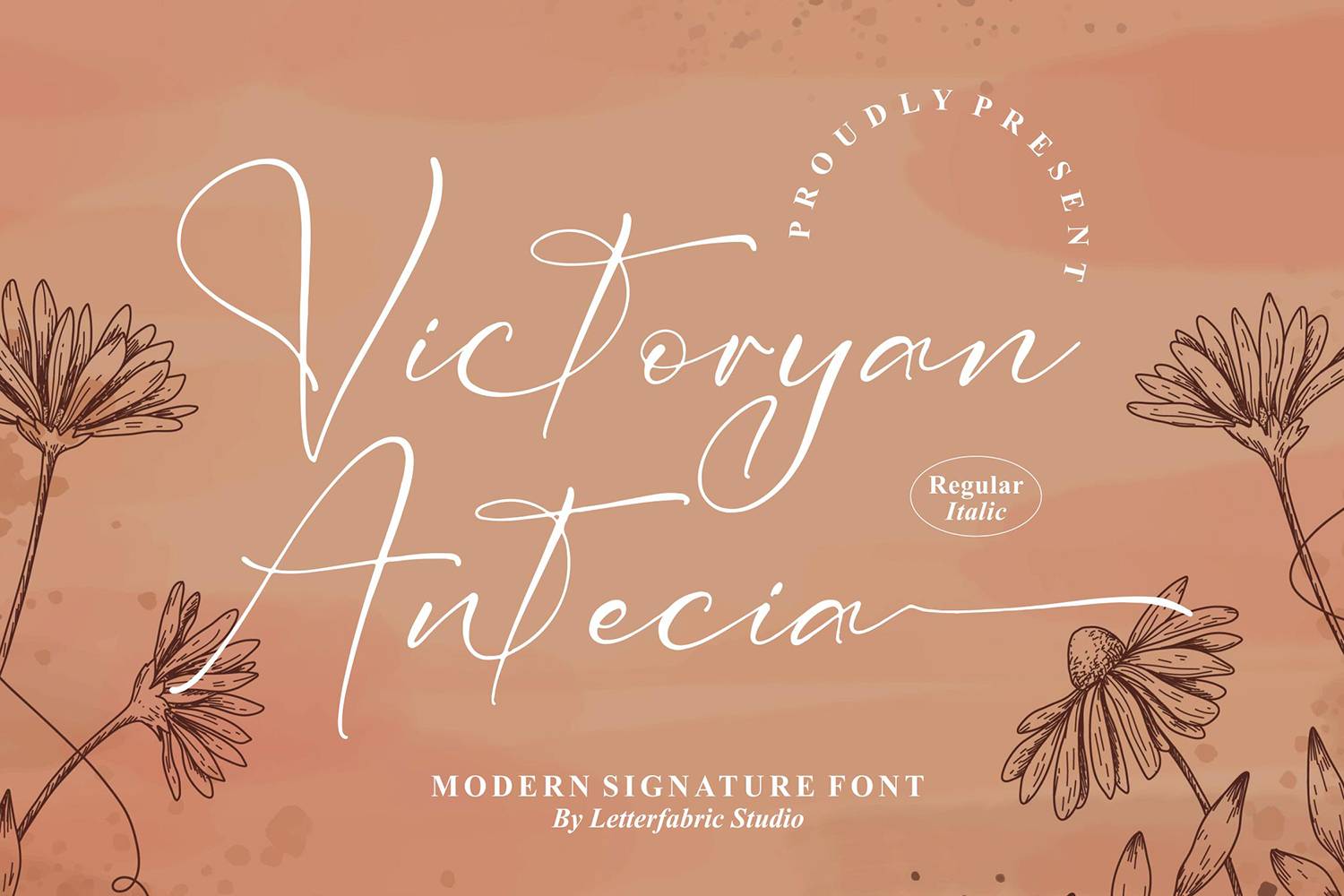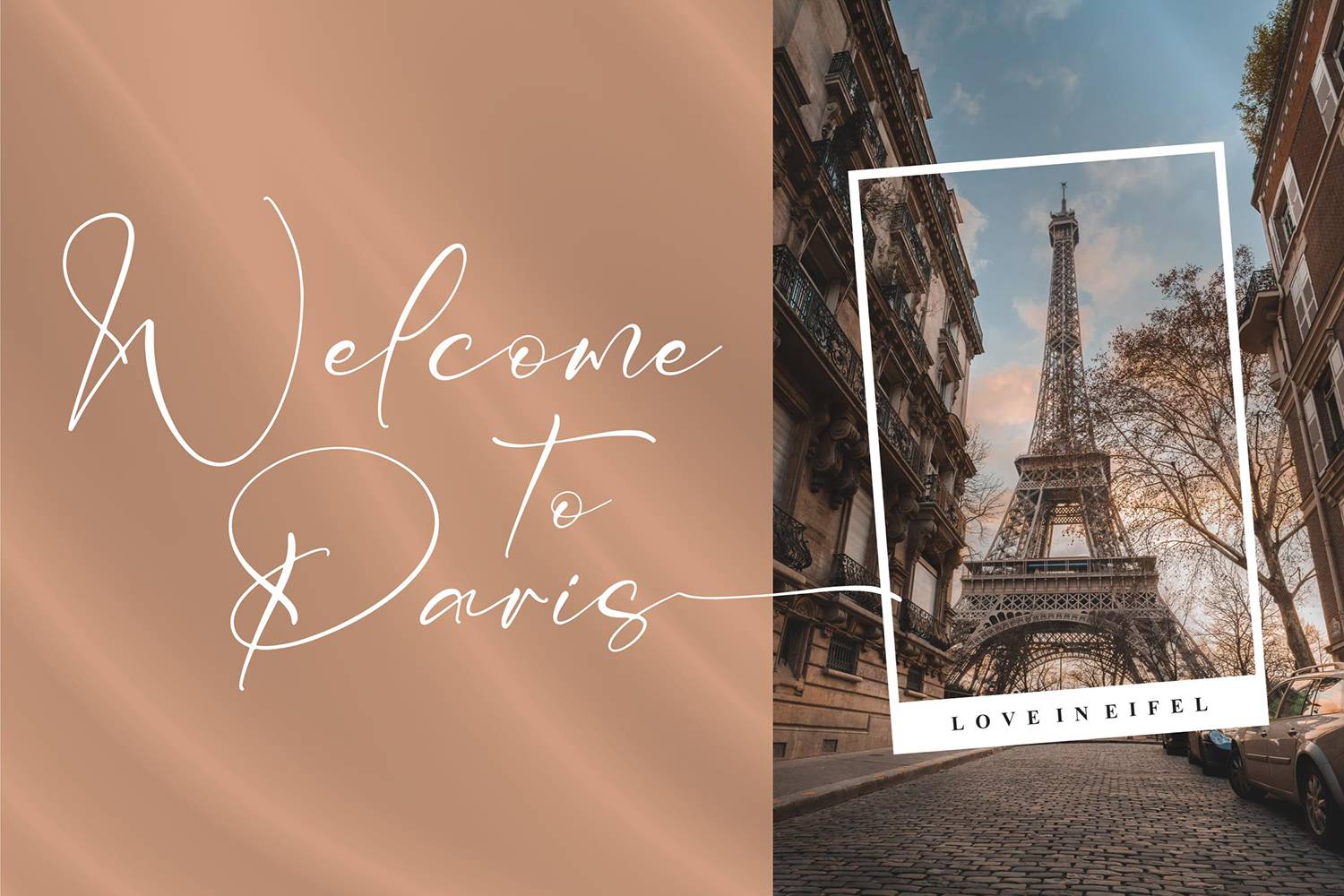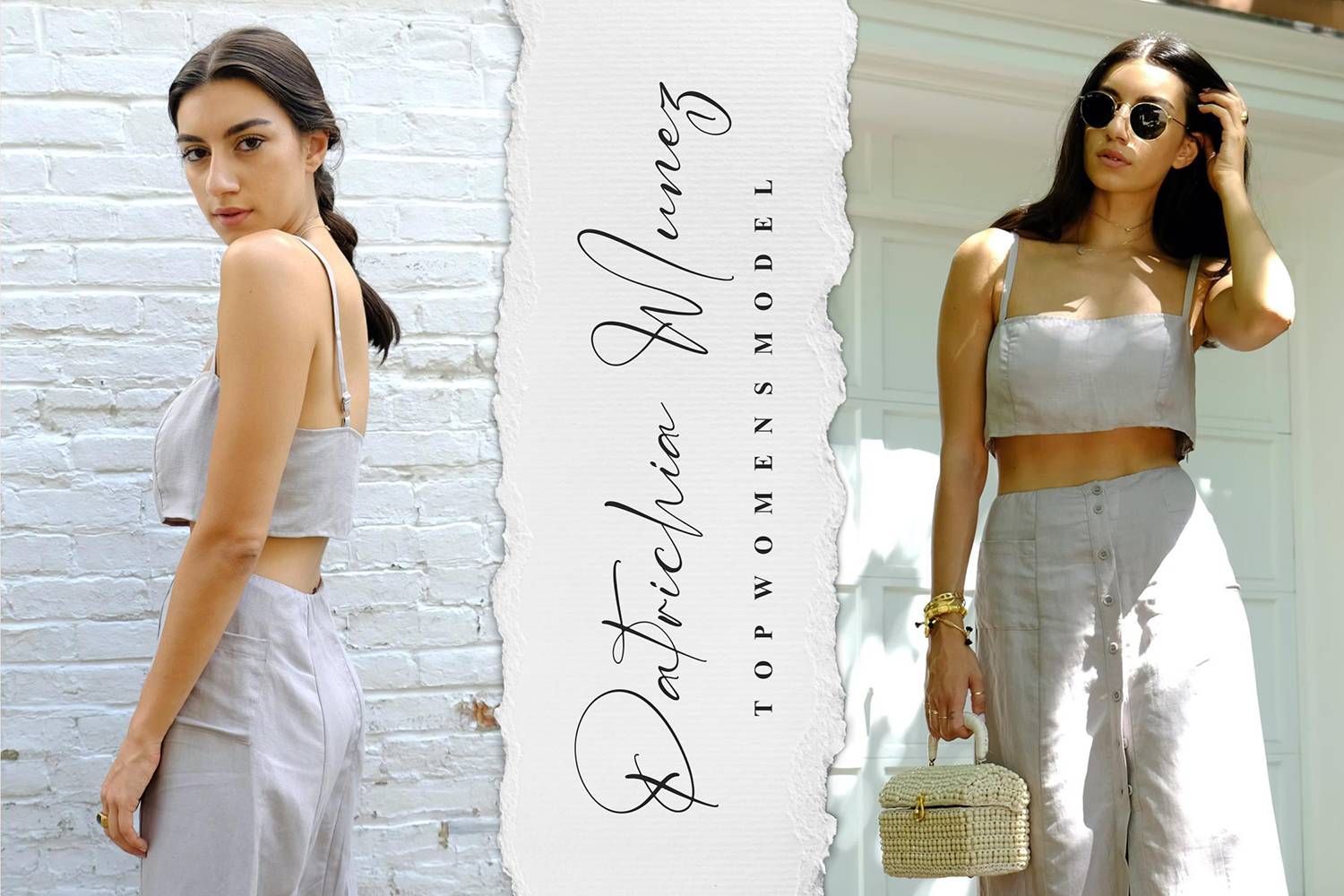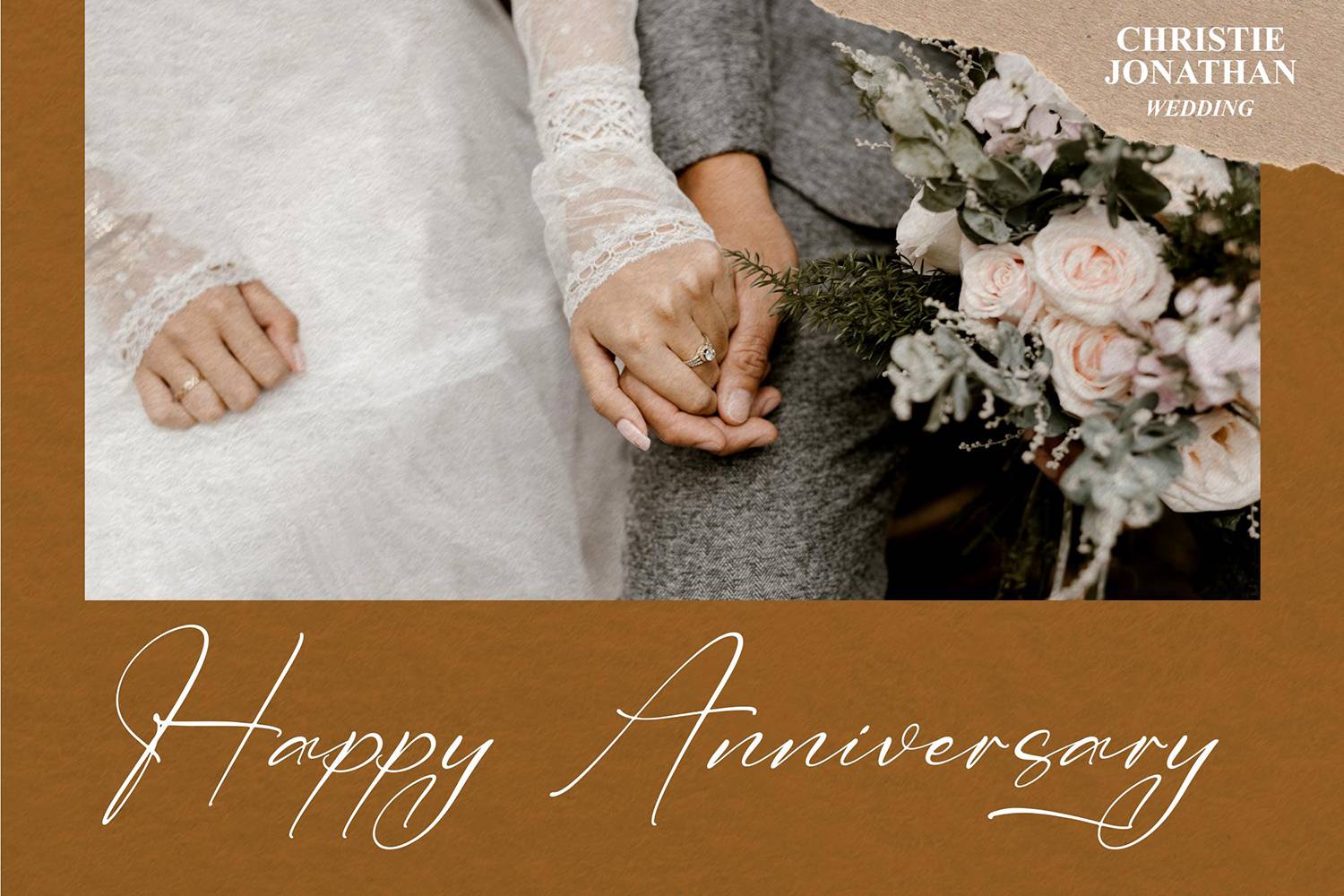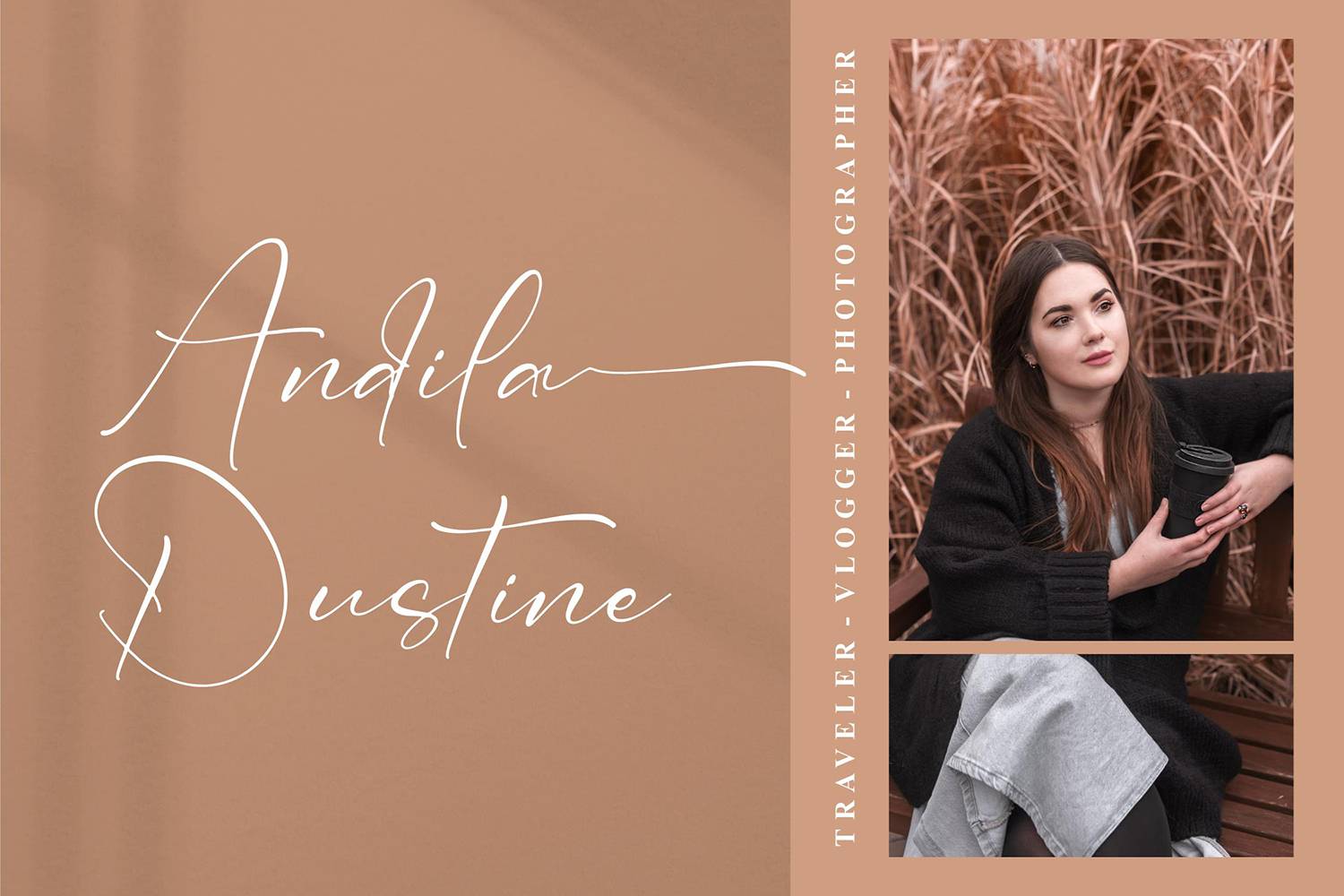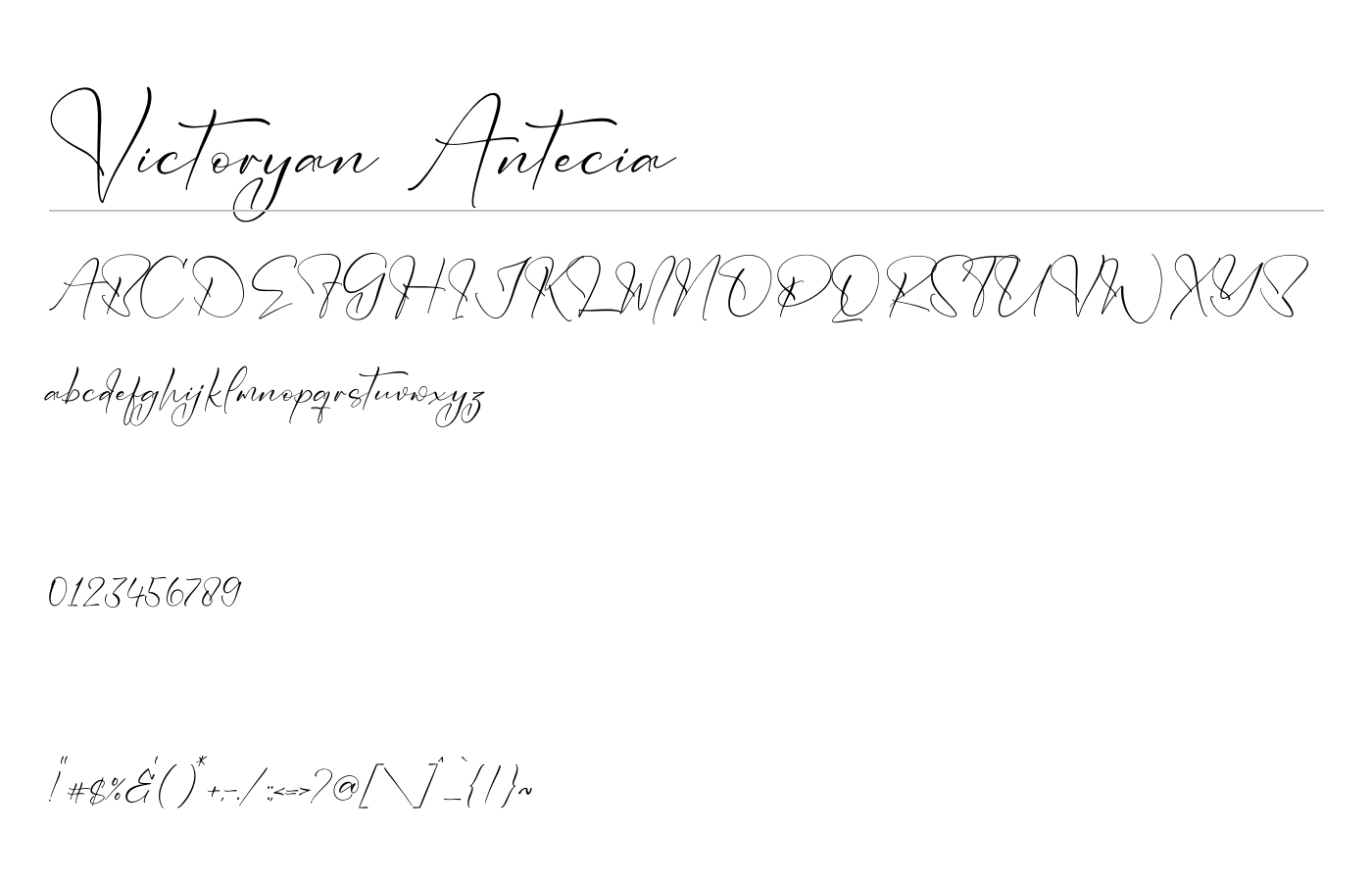
Victoryan Antecia is a delicate and elegant script font featuring thin, flowing strokes that mimic graceful handwriting with a modern flair. Its tall, slender letterforms and intricate character connections create a sophisticated, airy feel perfect for upscale branding, wedding invitations, or fashion editorial designs. This font shines in projects seeking a refined, personal touch with a contemporary yet romantic style.
Victoryan Antecia Font
About Victoryan Antecia Font